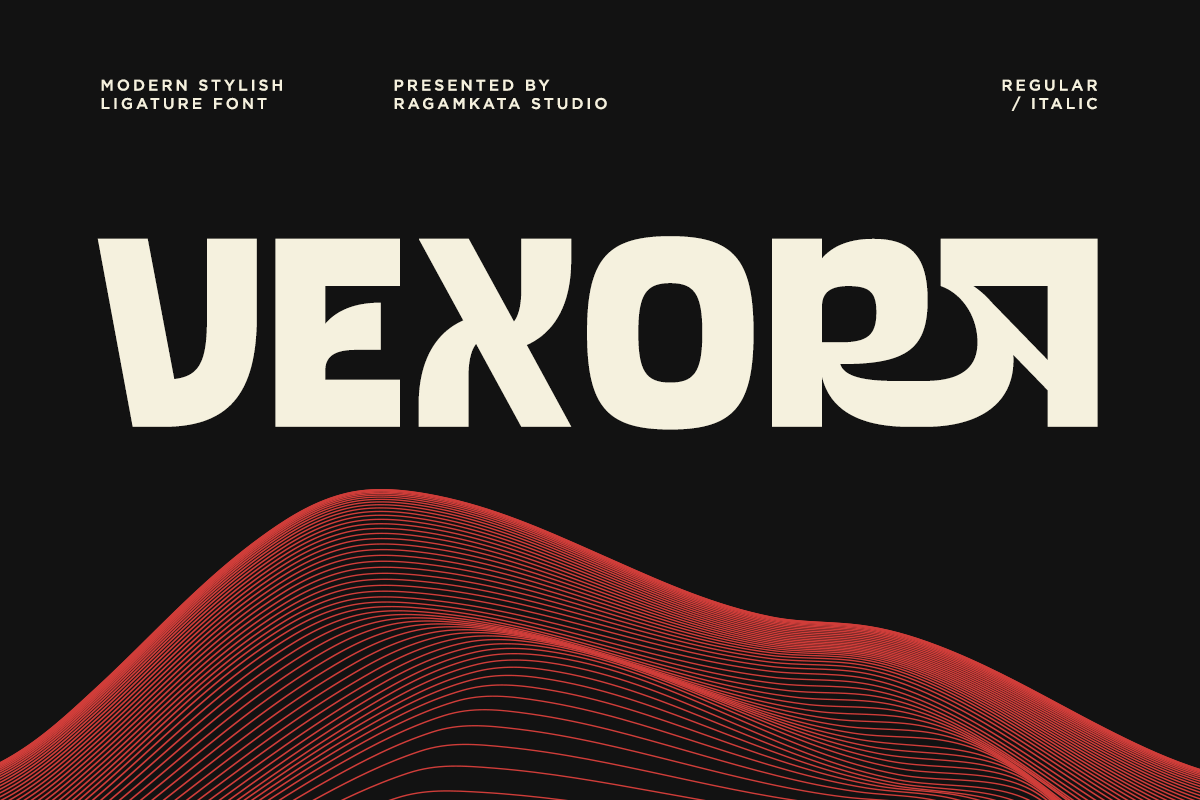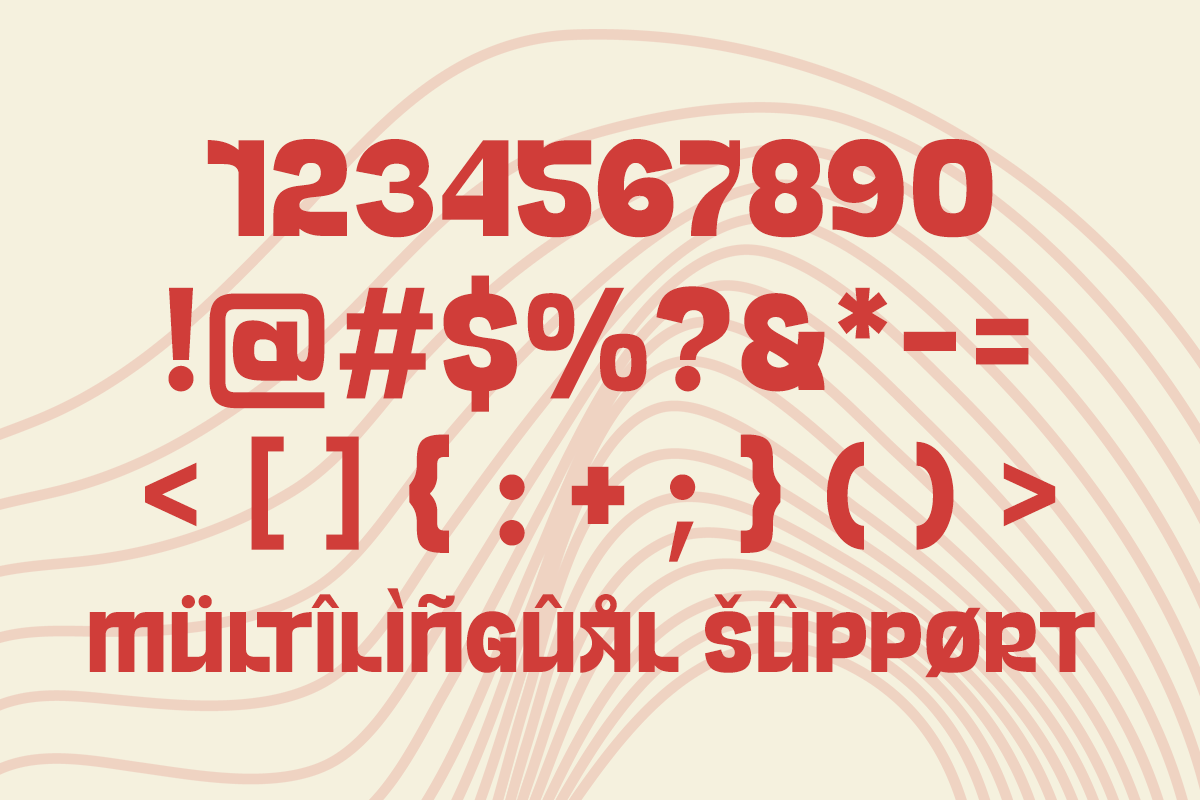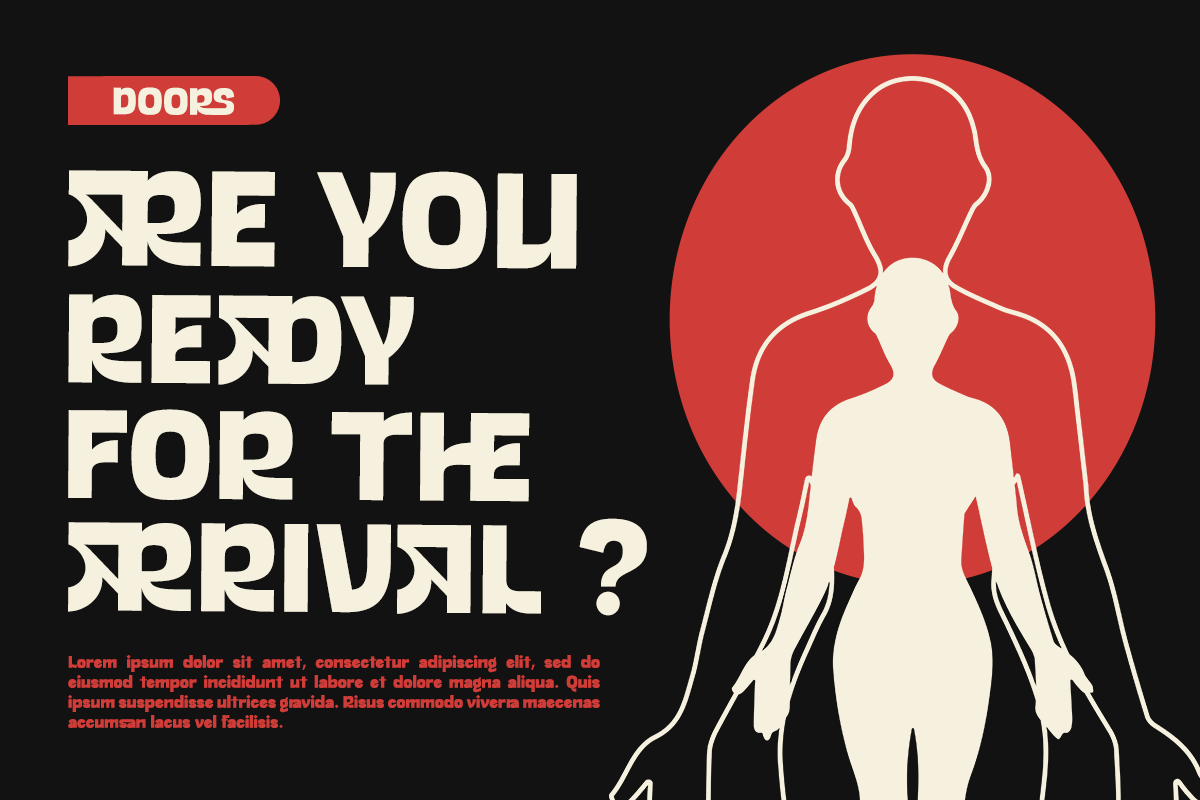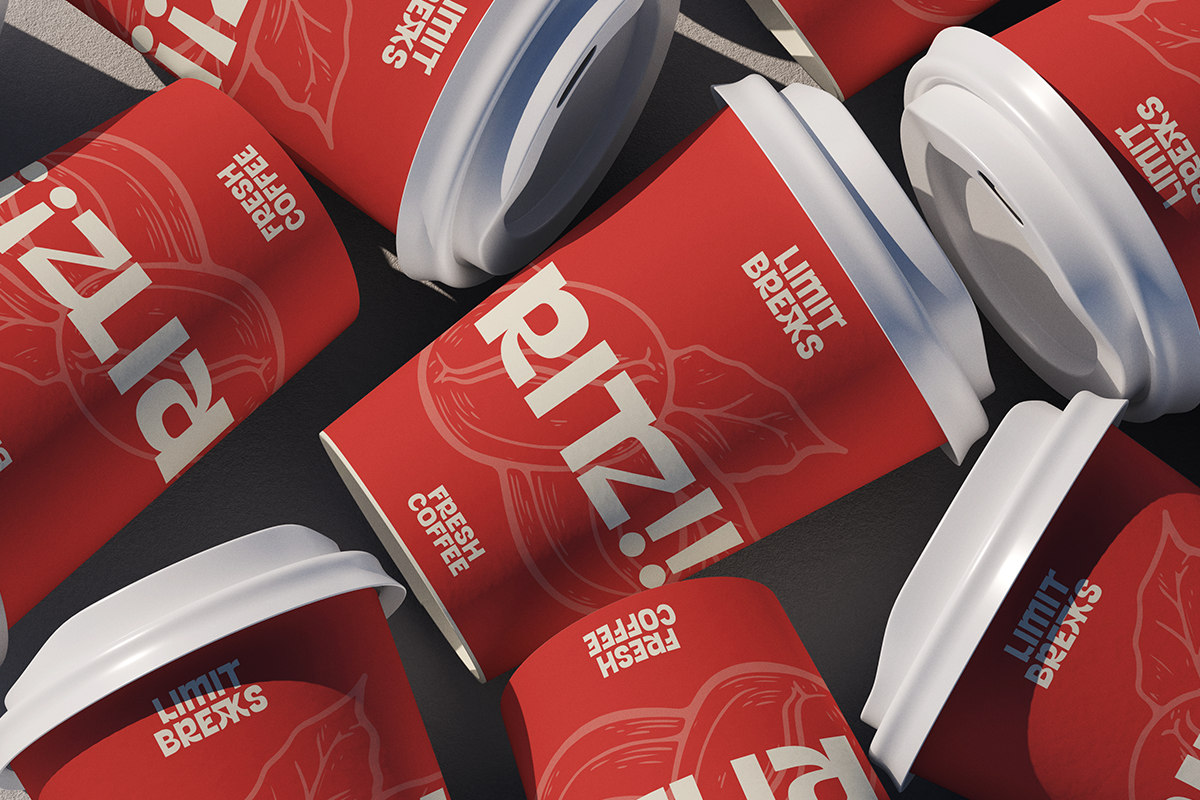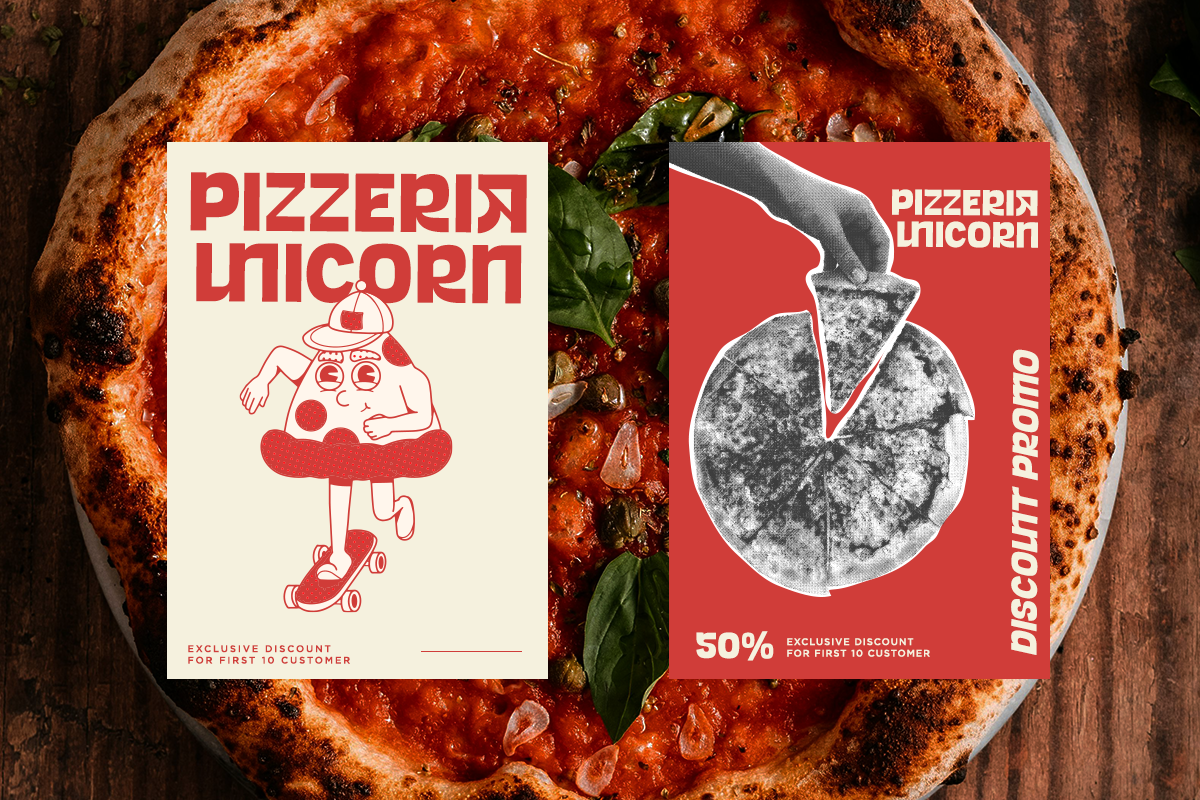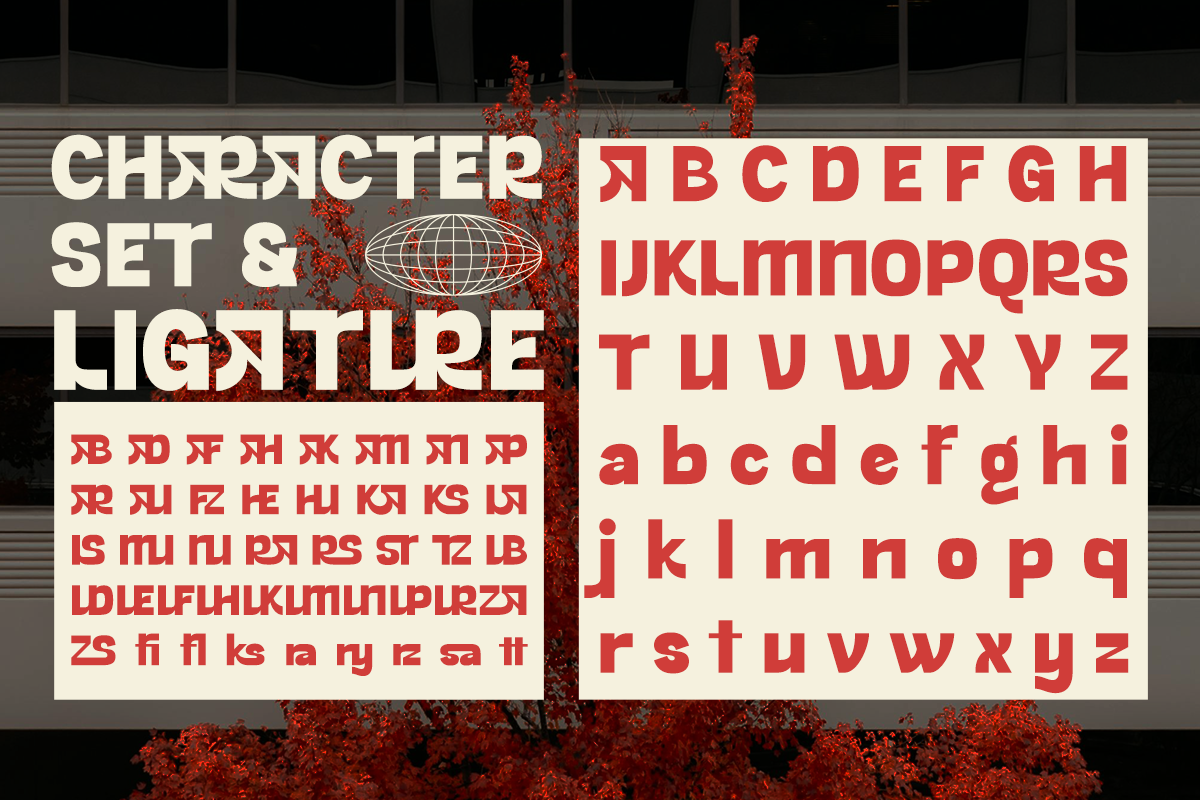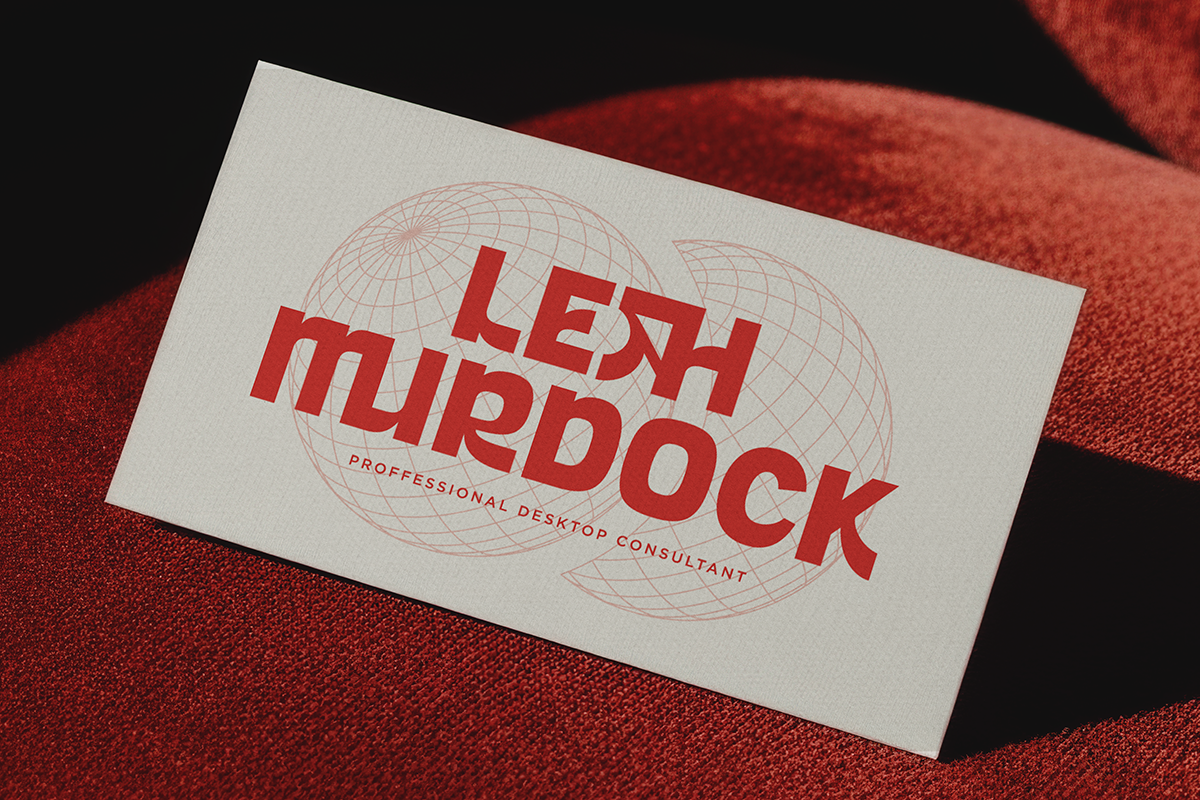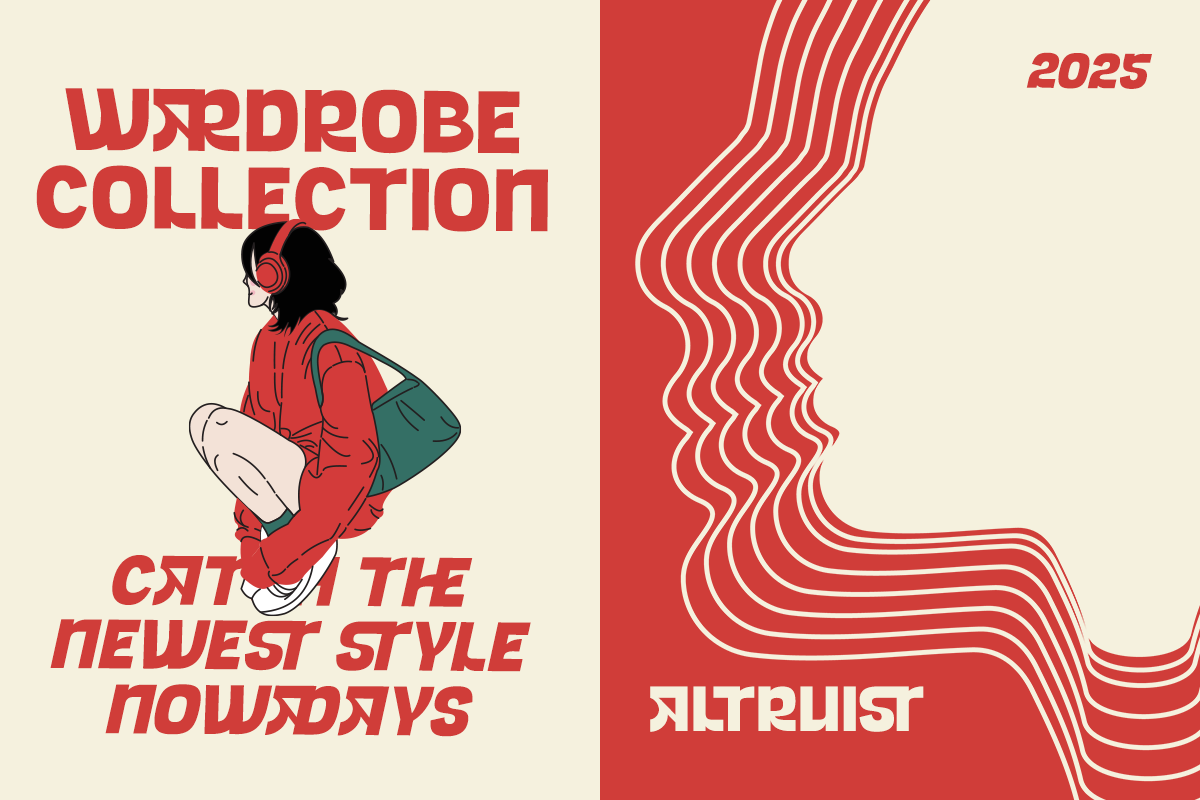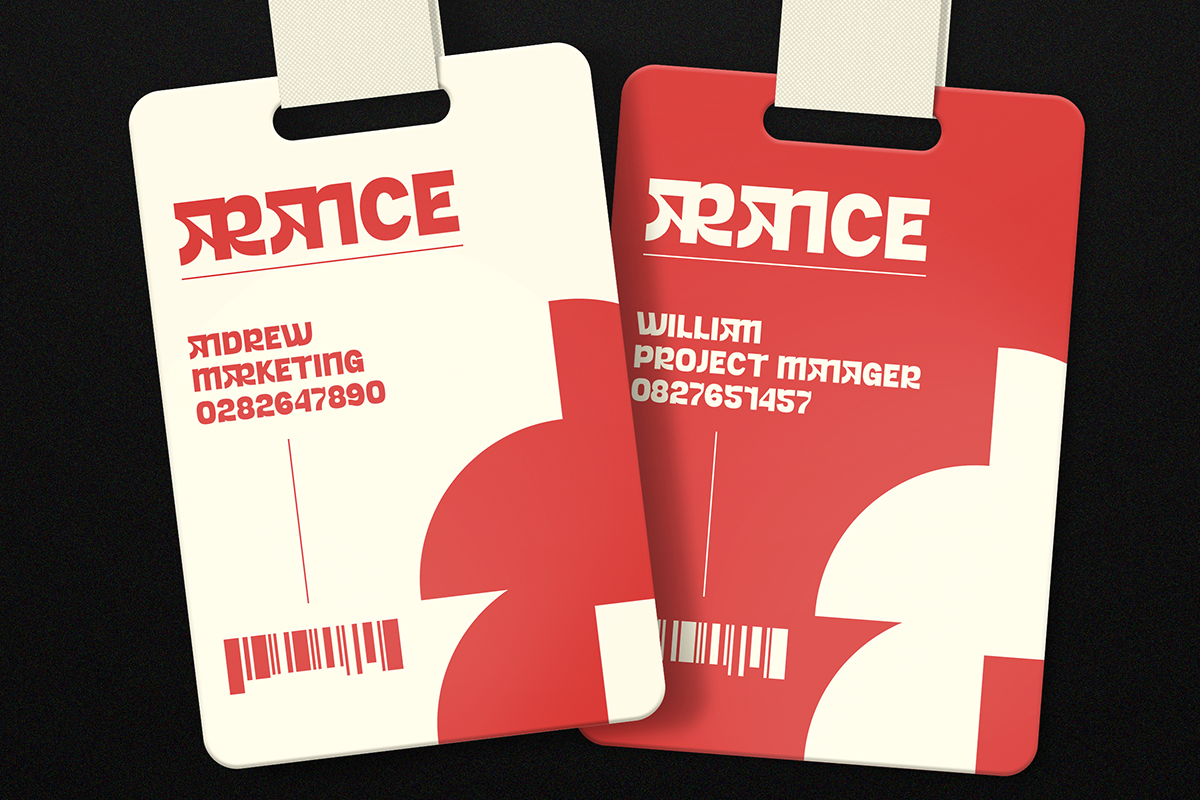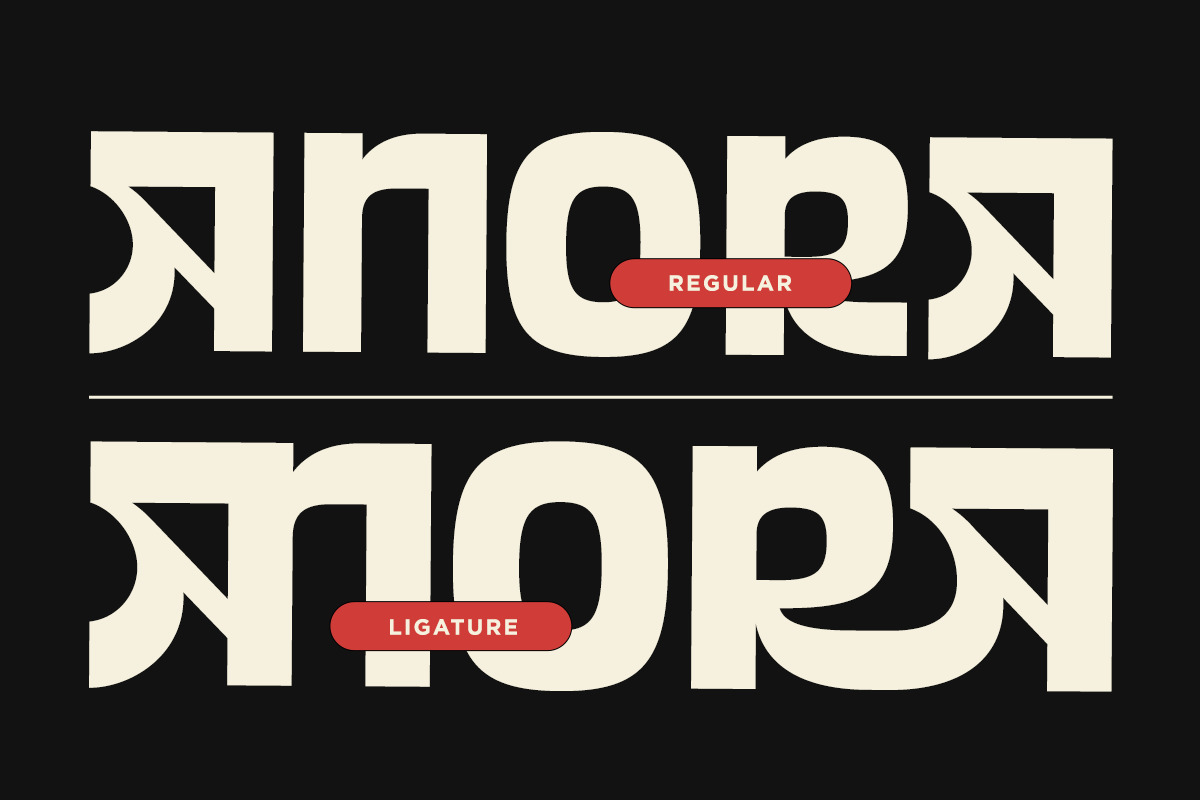
Vexora - Modern Ligature Sans Font
Vexora is a modern, stylish ligature display font that blends bold geometric shapes with futuristic character forms, making it perfect for eye-catching creative projects. Its clean curves, sharp angles, and unique alternates give every word a striking, contemporary feel, ideal for branding, logos, posters, album covers, tech themes, gaming visuals, apparel designs, packaging, headlines, editorial layouts, and any project that needs a strong, modern personality.
- Stylish Ligature Set
- Number, and Symbol